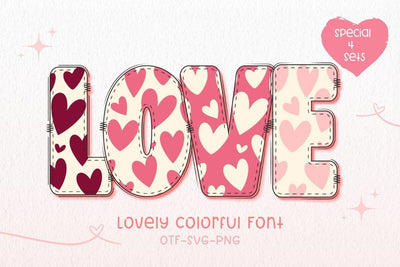
Love - Color Font
Love is a lovely colorful font perfect for all your Valentine-themed projects. You can use it to design products such as banners, content, mugs, cards, shirts, stationery, social media posts, and more!